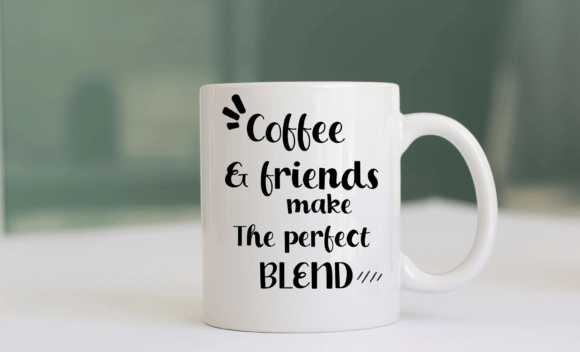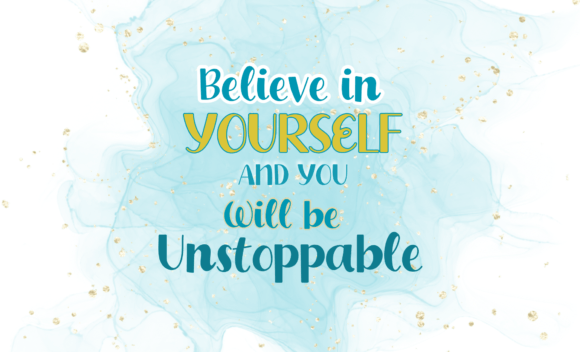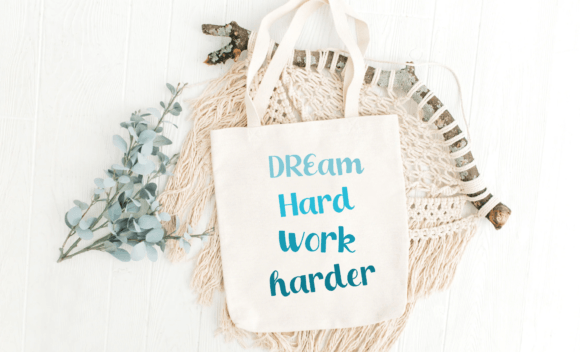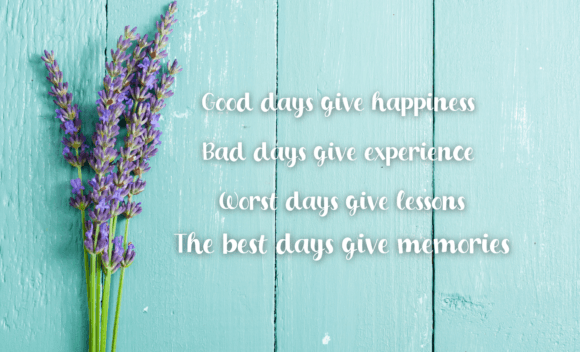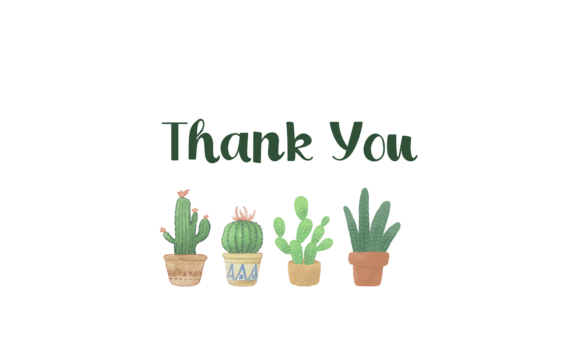
Havana Font: The Ultimate Handwritten Font for Creative Projects
Are you a designer or crafter looking for a unique and versatile font to elevate your creative projects? Look no further than the Havana Font! This handwritten font is making waves in the design community for its cuteness, playfulness, and neatness. In this article, we’ll dive into the features and benefits of the Havana Font, and explore how you can use it to take your digital prints, social media posts, planners, journals, and presentations to the next level.
What is Havana Font?
Havana Font is a carefully crafted handwritten font that exudes a sense of playfulness and charm. Its unique lettering style is characterized by clean lines, subtle curves, and a dash of whimsy. This font is perfect for designers and crafters who want to add a personal touch to their work without sacrificing legibility.
Key Features of Havana Font
- Cute and Playful: Havana Font is designed to be fun and engaging. Its playful style makes it perfect for projects that require a lighthearted and youthful vibe.
- Neat and Clean: Despite its playful nature, Havana Font remains neat and clean, making it easy to read and understand.
- Versatile: This font is incredibly versatile and can be used for a wide range of projects, from digital prints to social media posts, planners, journals, and presentations.
Uses of Havana Font
So, how can you use Havana Font in your creative projects? Here are some ideas to get you started:
- Digital Prints: Add a personal touch to your digital prints, such as invitations, greeting cards, and posters, with Havana Font.
- Social Media Posts: Use Havana Font to create eye-catching phrases and quotes for Facebook and Instagram.
- Planners and Journals: Add a touch of personality to your planners and journals with Havana Font. It’s perfect for headings, titles, and inspirational quotes.
- Presentations: Make your presentations more engaging with Havana Font. Use it for titles, headings, and bullet points to add visual interest.
Benefits of Using Havana Font
So, why should you choose Havana Font for your creative projects? Here are some benefits to consider:
- Unique Style: Havana Font offers a unique and distinctive style that will set your projects apart from the rest.
- Easily Readable: Despite its playful nature, Havana Font remains easy to read, making it perfect for projects that require a high level of legibility.
- Time-Saving: With Havana Font, you can create professional-looking projects in no time. Its clean lines and subtle curves make it easy to use and customize.
Tips for Using Havana Font
Here are some tips to help you get the most out of Havana Font:
- Experiment with Colors: Havana Font looks great in a variety of colors. Experiment with different hues and combinations to find the perfect look for your project.
- Mix and Match: Don’t be afraid to mix and match Havana Font with other fonts to create a unique look.
- Pay Attention to Spacing: Make sure to pay attention to spacing when using Havana Font. Adjust the kerning and tracking to ensure that your text looks balanced and visually appealing.